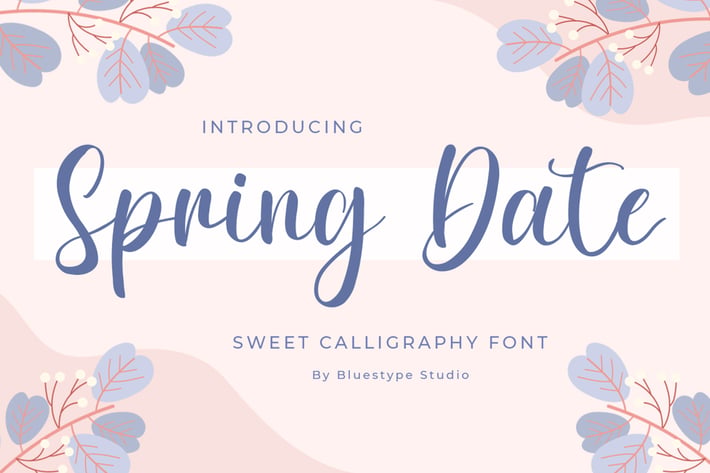
Spring Date Font
Spring Date is sweet and simple calligraphy with a beauty feel. Get inspired by its modern simplicity!
This font is suitable for branding, card business, logo, photography, quotes, fashion, watermarks, invitations.